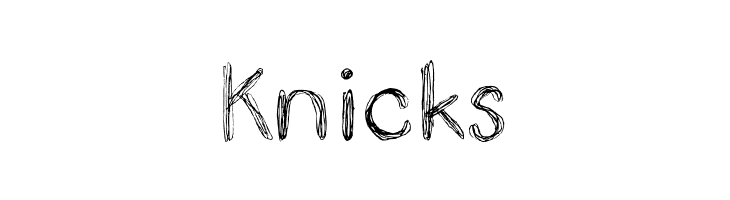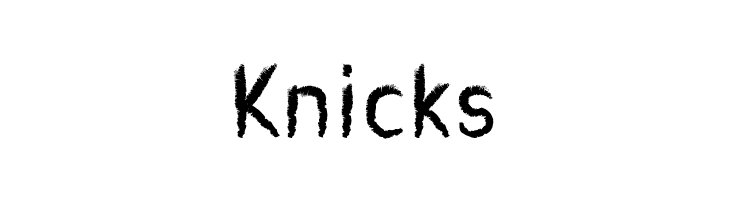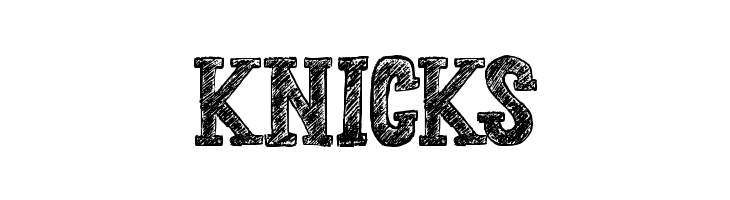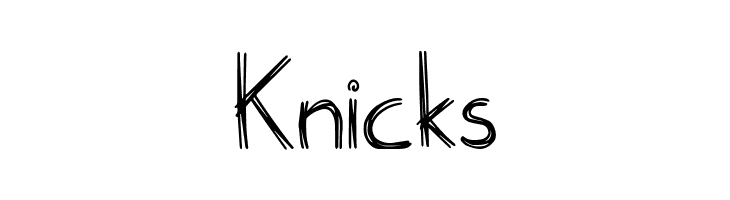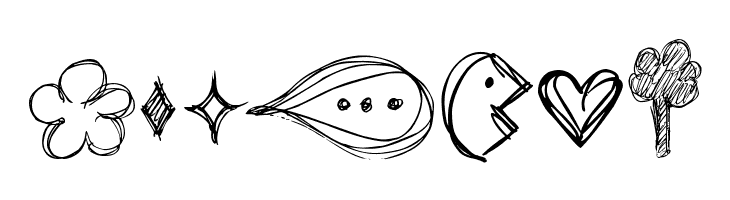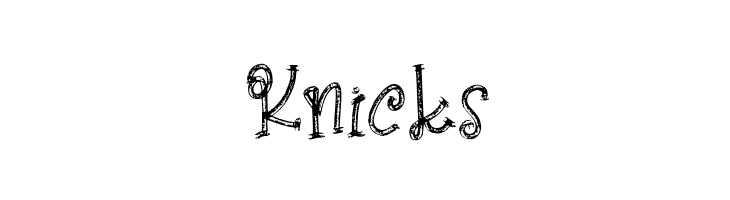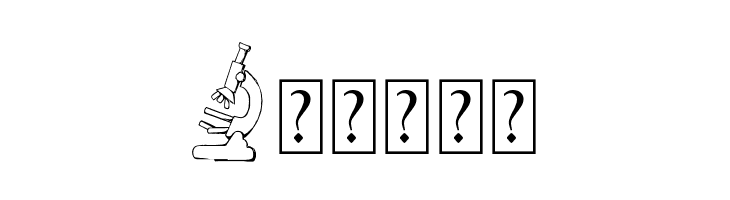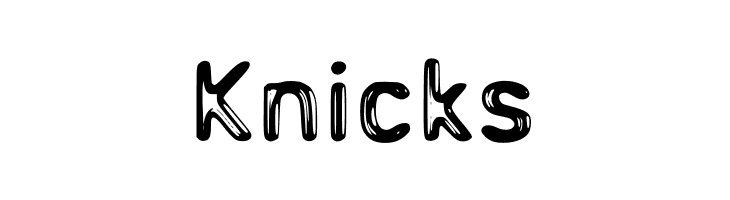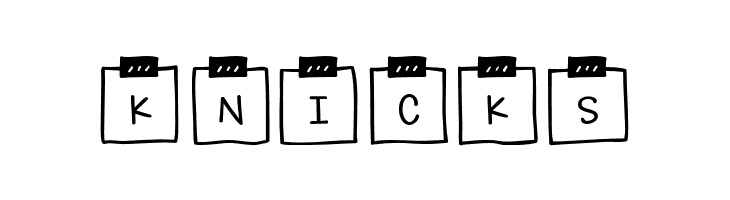
A rugged, hand-drawn font with sharp, angular strokes and a graffiti-like appearance.
A playful, hand-drawn font with doodle-like strokes and an artistic flair.
A textured, hand-drawn font with a playful, artistic feel.
A hand-drawn, sketch-style font with textured, artistic characters.
A playful, hand-drawn font with a colored pencil sketch style.
Hand-drawn, whimsical doodle symbol font.
A whimsical, hand-drawn font with intricate detailing and a playful style.
A playful, school-themed handwritten font with doodle-like illustrations.
A bold, playful font with a hand-drawn, sketch-like style.
A playful, hand-drawn font resembling sticky notes with a casual and whimsical style.